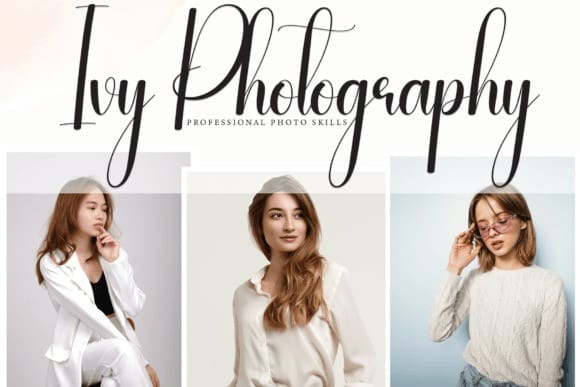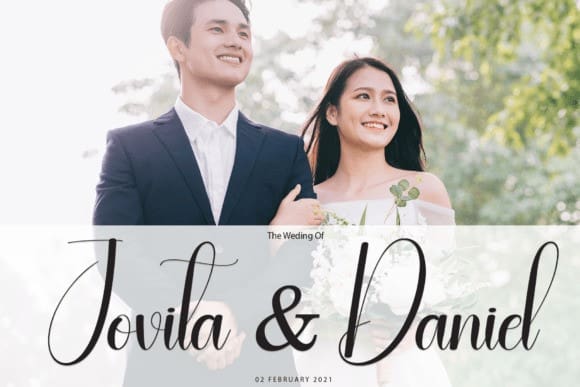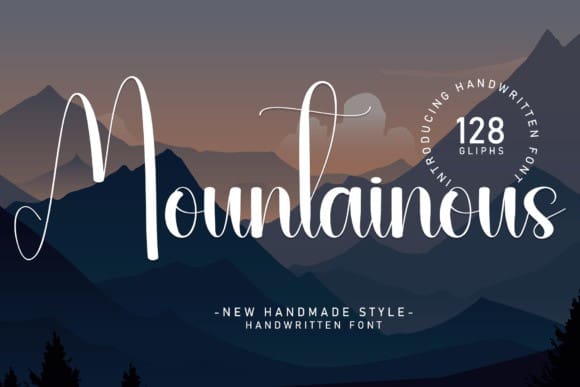
Mountainous Script Font
Mountainous Script Font is a sweet and friendly handwritten font. Fresh and neat, this font is ideal for writing wedding invitations, cards, or any other design that might need a fun touch.